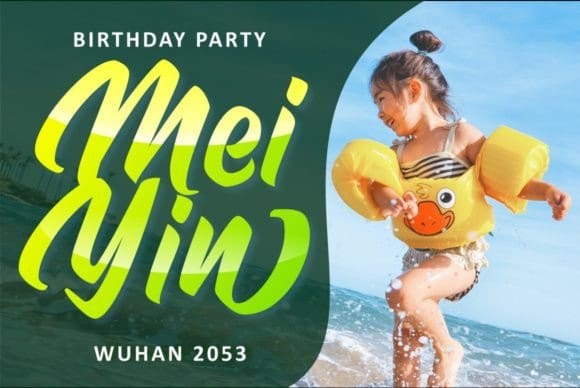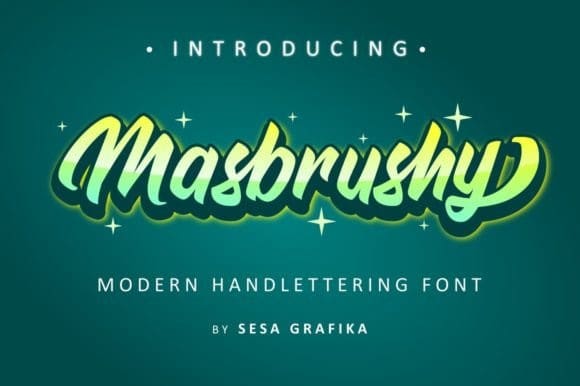
Masbrushy Script Font
Masbrushy Script Font is a bold and classic handwritten font. Clean and a little bit quirky, this font is the perfect fit for all of your logos, branding, social media, and crafty DIY projects.